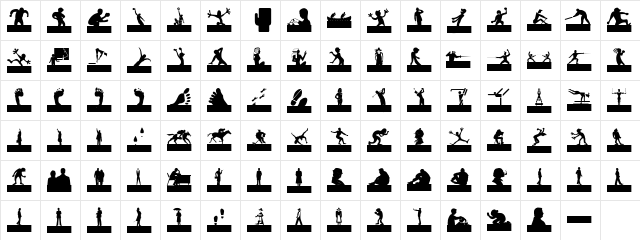
SilhouettesSocled Regular
Design Context for SilhouettesSocled Typeface
SilhouettesSocled is a composed and adaptable typeface that performs quietly and consistently across a wide range of design contexts.